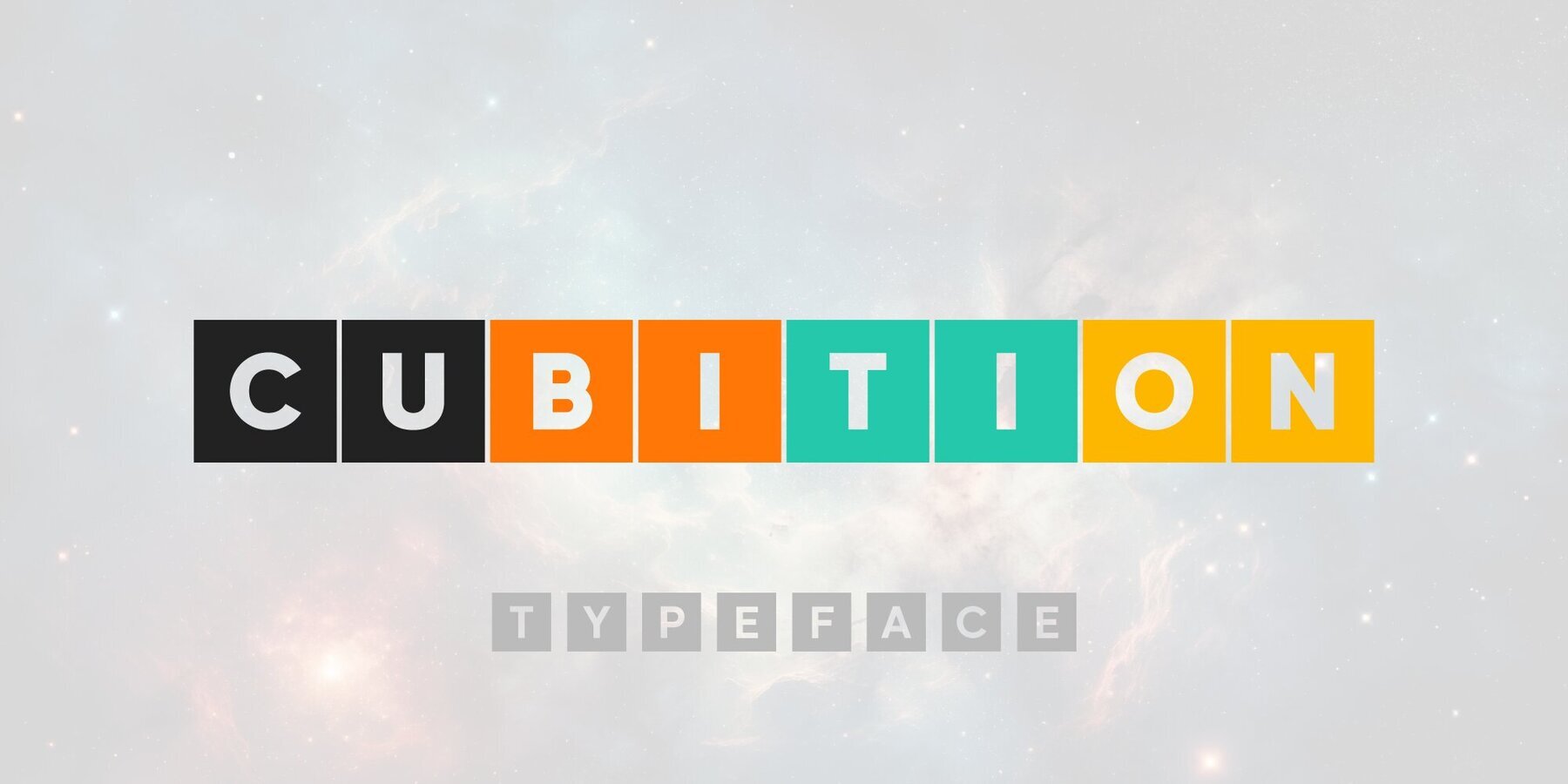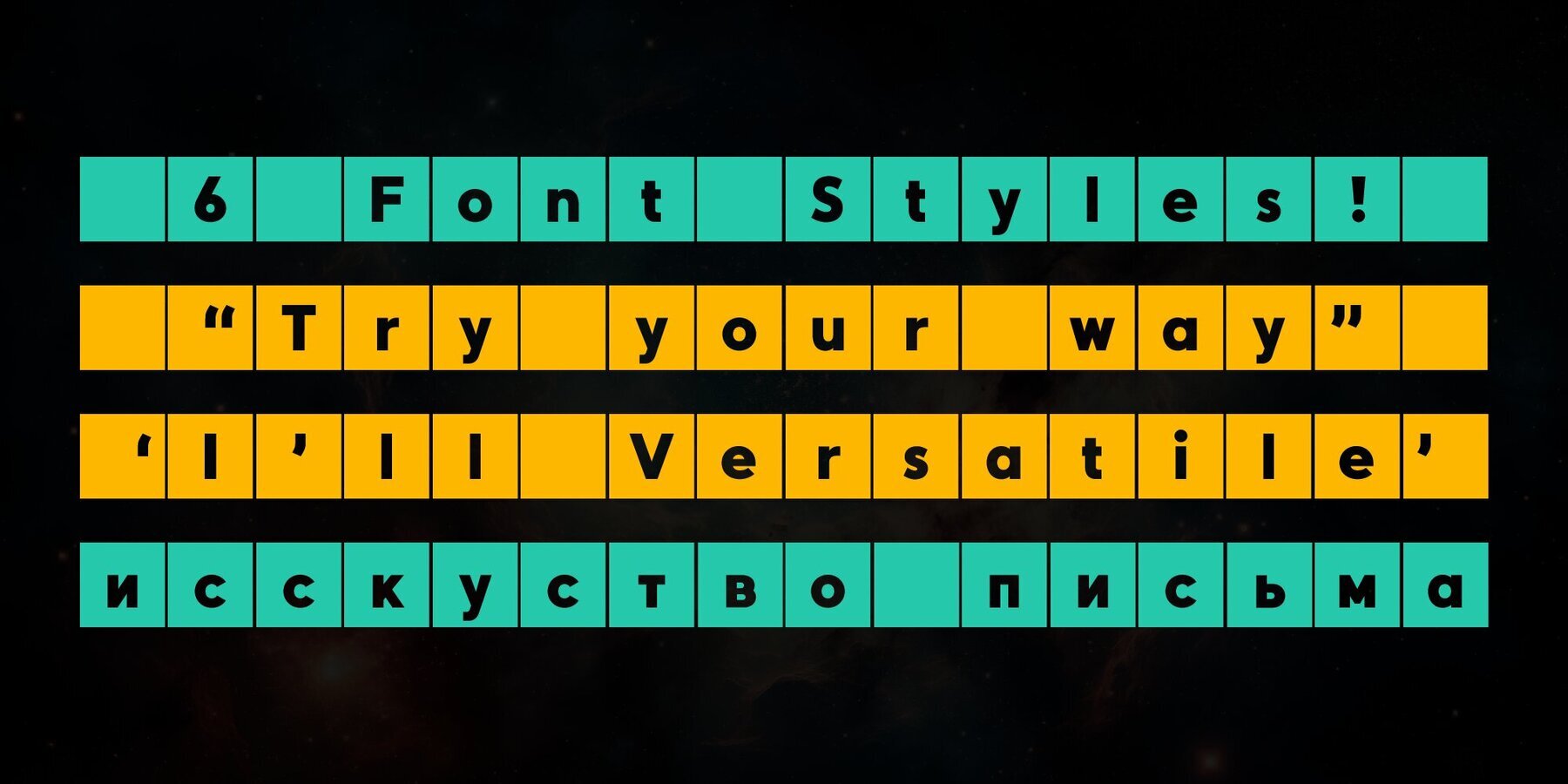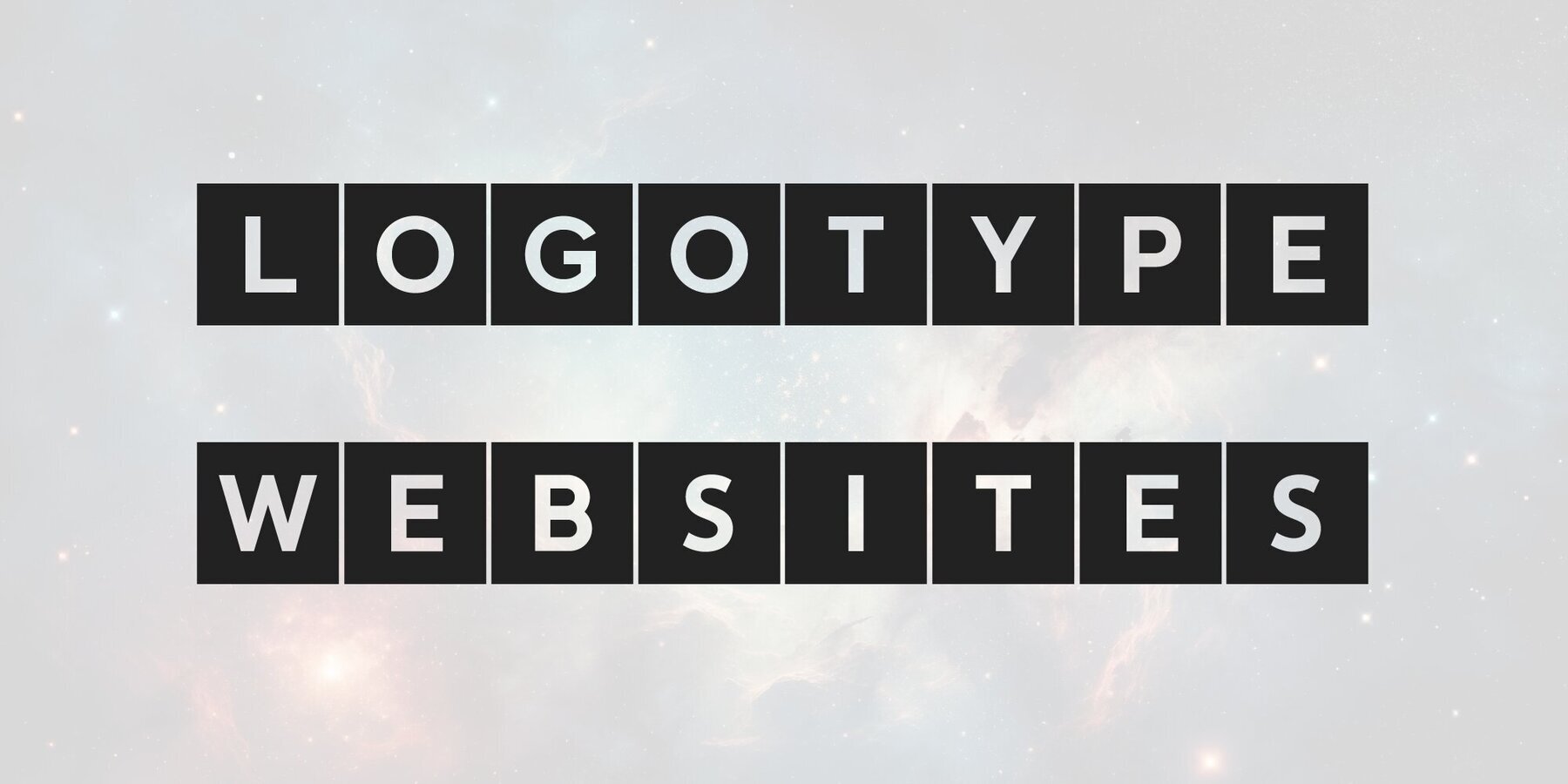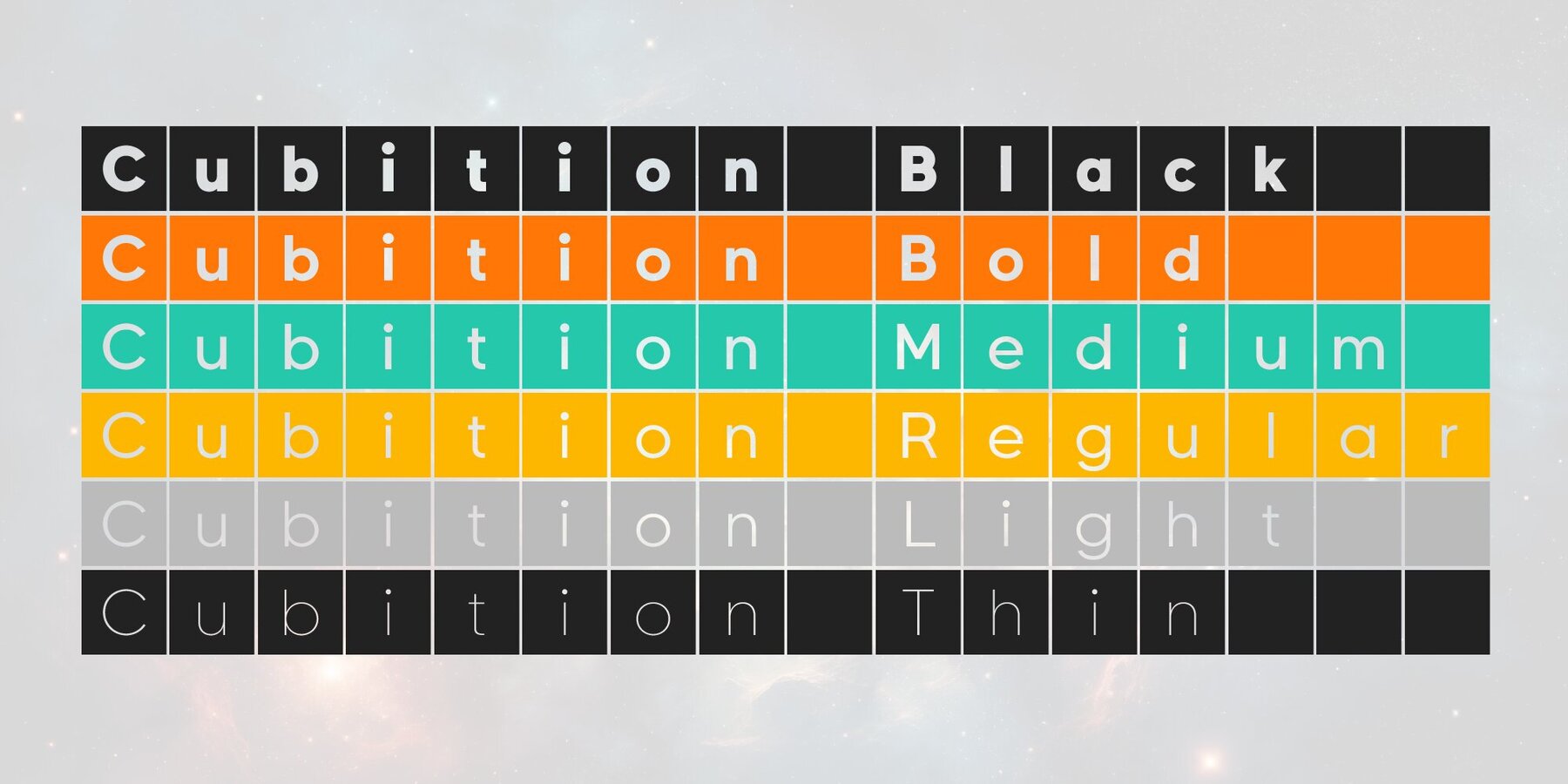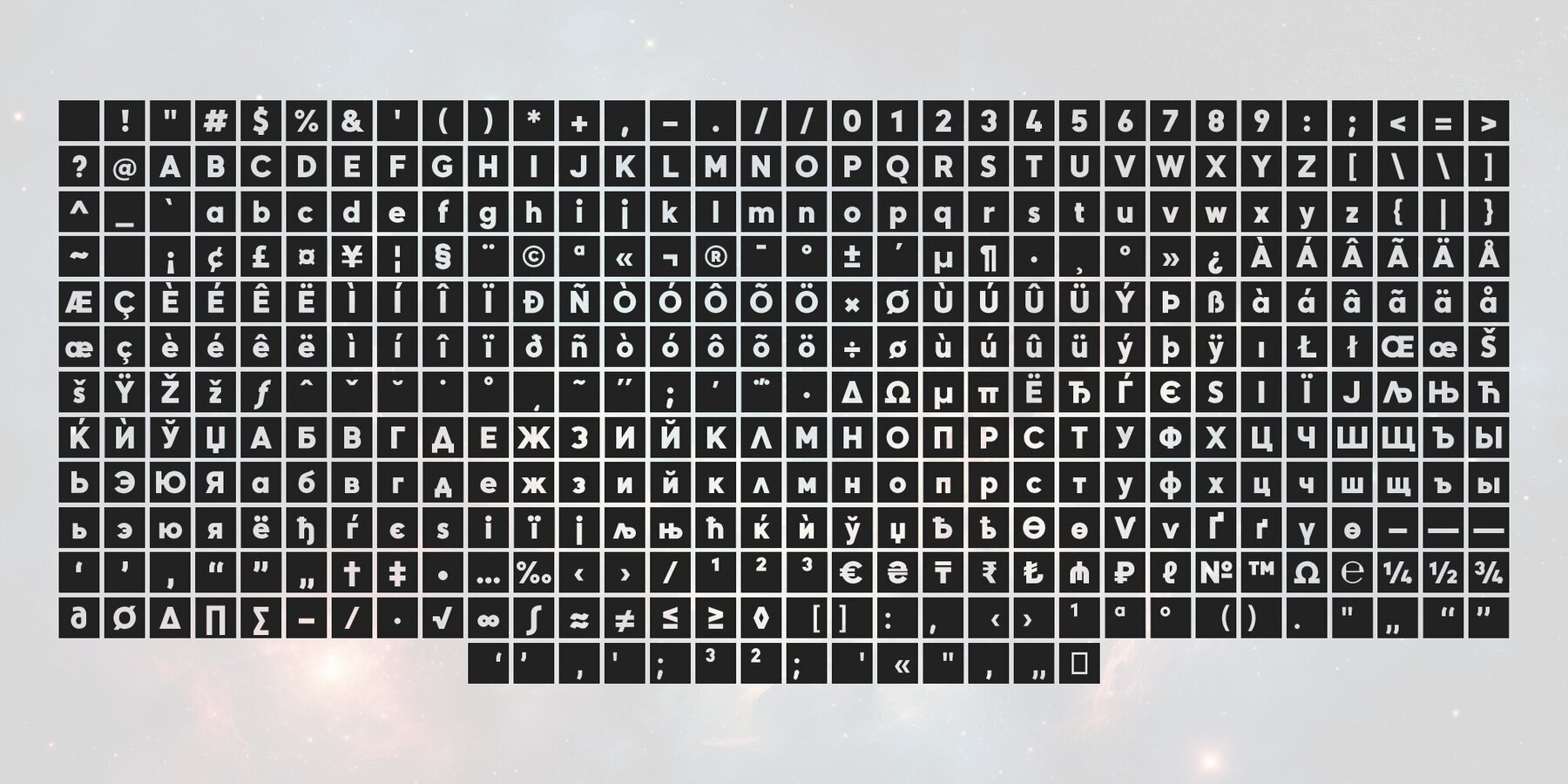
Cubition Font
Cubition font family was designed by Nikolay Savchuk. Cubition was created on base Everest Pro sans-serif typeface. It is brilliantly suited for graphic design and display use and perfect for brand identity, magazines, newspapers, books, websites, and advertising.
Savchuk Mykola began his career as a graphic designer. Over time, he had a desire to create a font that would reflect his view of typography. ‘They say that all ingenious things are simple, although unique. In my future projects, I want to reflect simplicity on the one hand and uniqueness on the other, providi...